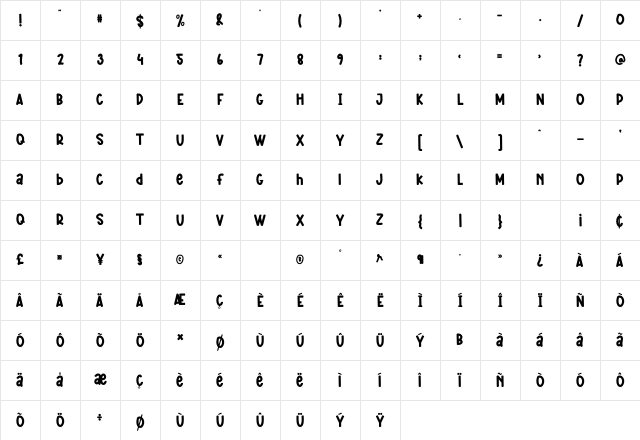
SMOOTH CHEESE Regular
Design Context for SMOOTH CHEESE
SMOOTH CHEESE is a composed and adaptable typeface that performs quietly and consistently across a wide range of design contexts.